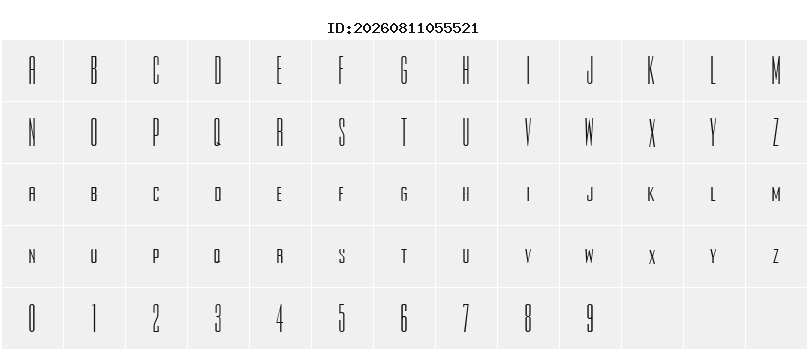
• Font Name: Rothman
• Font Style: Plain
• Full Font Name: Rothman Plain
About Rothman.ttf
Rothman.ttf is a modern, elegant sans-serif font designed for ultimate readability and visual harmony. Perfect for branding, headlines, web design, and print materials.